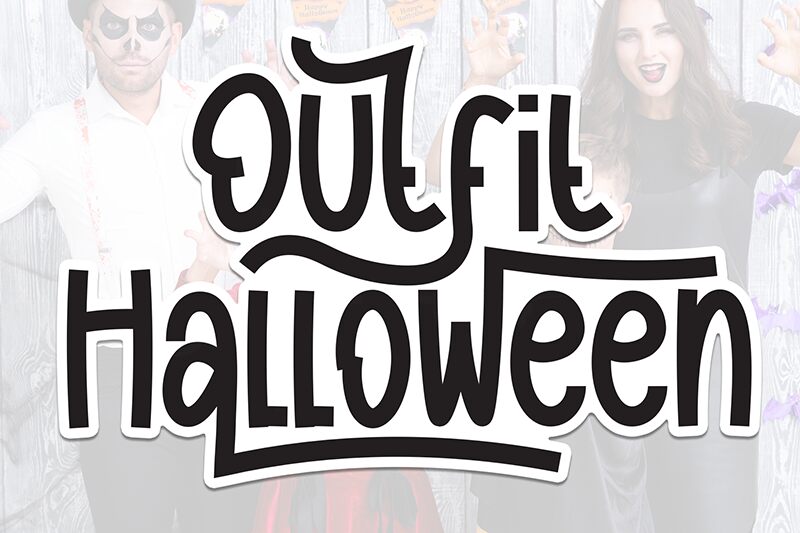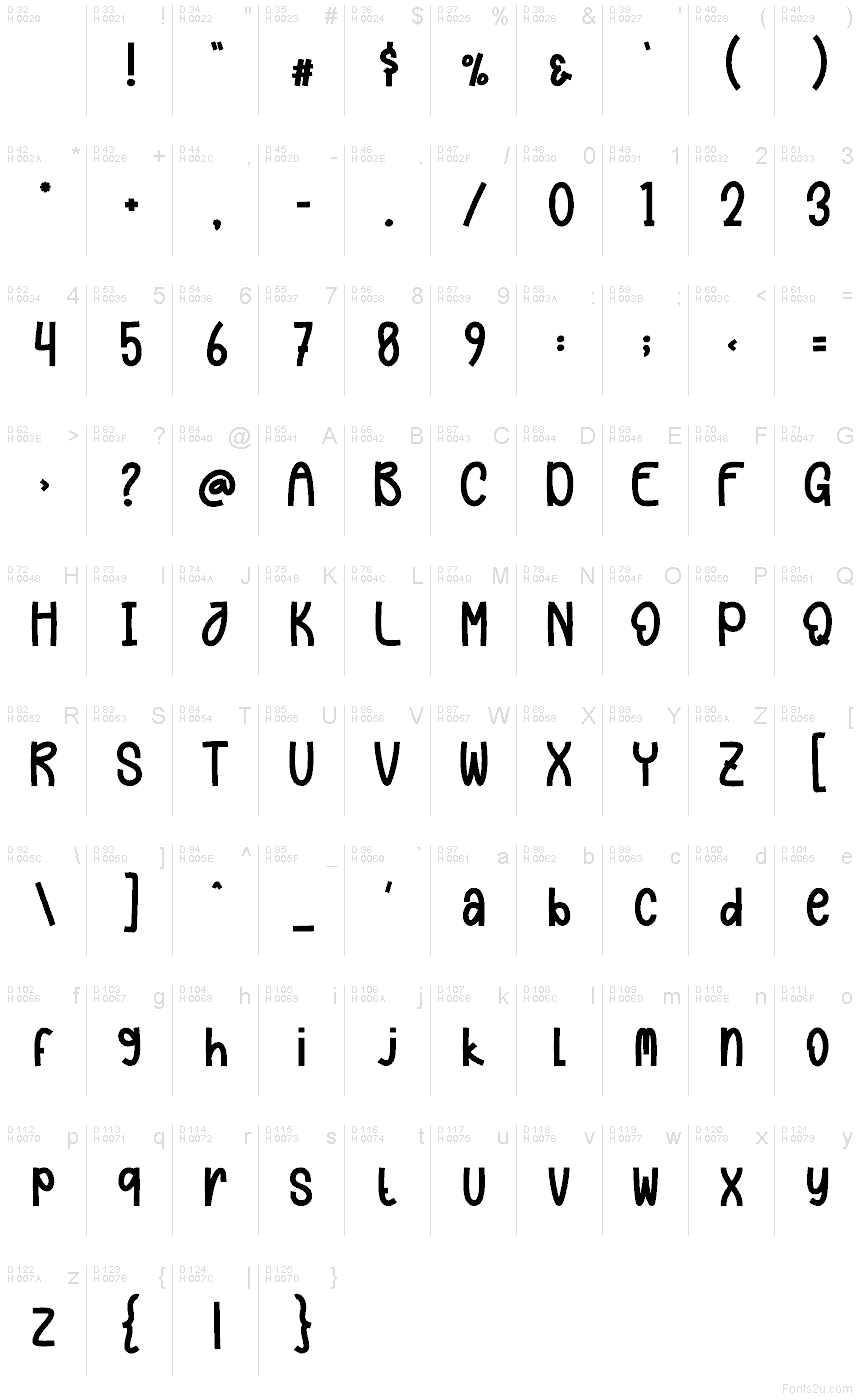
Outfit Halloween
Outfit Halloween font by Andi Moz is a free condensed display font inspired by the creepy look associated with the season’s occasion. The font mixes both rounded and geometric appearances along with an added layer of horror in every character. Each character features wide circular eyes and surprises which can easily stand out in short texts on various surfaces.
Use Outfit Halloween for T-shirt designs, embroidery on costumes, coloring books covers, posters, flyers, and online posts about your pumpkin patch opening hours. Additional use cases can include banners announcing discounts on items, TV infographics that include short text content, or even custom wrapping paper.